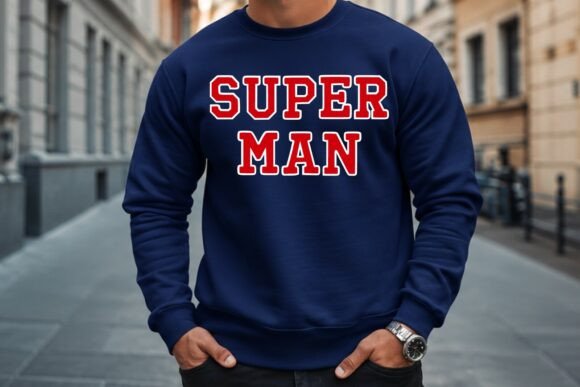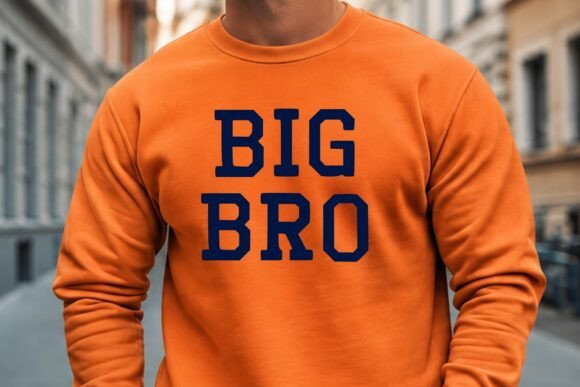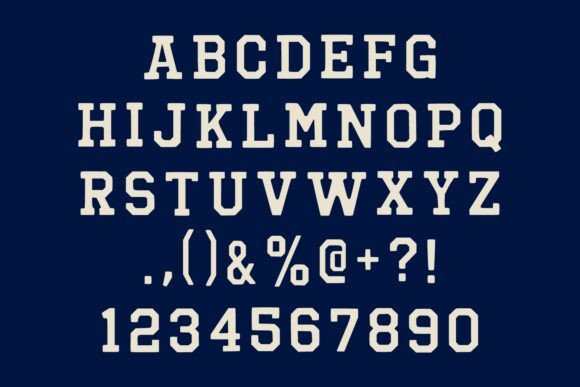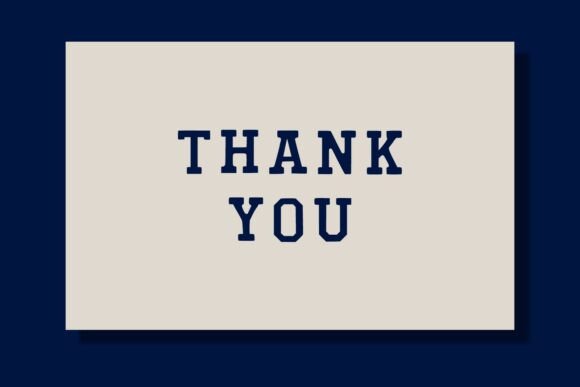
Introducing College Font: The Ultimate Varsity Display Typeface
Are you looking for a font that captures the spirit of classic American college sports, vintage university lettering, and retro campus culture? Look no further than College Font, a bold and energetic varsity display typeface designed to deliver a powerful and professional look. In this article, we’ll dive into the features and benefits of College Font, and explore how it can elevate your sports branding, jersey designs, team logos, and more.
Inspired by Classic American College Sports
College Font is inspired by the iconic lettering and typography of classic American college sports. From vintage university lettering to athletic team jerseys and retro campus culture, this font captures the authentic spirit of championship games, school pride, and traditional varsity aesthetics. With its strong collegiate character shapes and sporty outlines, College Font is the perfect choice for designers and crafters looking to create bold and eye-catching designs.
Key Features of College Font
- Bold Slab-Style Letterforms: College Font features bold slab-style letterforms that provide a powerful and professional look.
- Retro Varsity Details: The font combines retro varsity details with modern typography, creating a timeless sports typography style suitable for both modern and vintage-inspired designs.
- Strong Collegiate Character Shapes: College Font’s character shapes are designed to evoke the spirit of classic American college sports, making it perfect for sports branding, jersey designs, and team logos.
- Sporty Outlines: The font’s sporty outlines add a dynamic touch to your designs, making them stand out from the crowd.
College Font is versatile and can be used for a wide range of applications, including:
- Sports Branding: Create bold and eye-catching sports branding, including team logos, jerseys, and merchandise.
- Jersey Designs: Design stunning jerseys for football, basketball, baseball, and more.
- Team Logos: Create professional and memorable team logos that capture the spirit of your team.
- School Merchandise: Design school merchandise, including t-shirts, hoodies, and posters, that showcase school pride.
- Posters and Banners: Create eye-catching posters and banners for athletic events, championships, and more.
- Social Media Graphics: Design engaging social media graphics that capture the spirit of your team or brand.
Why Choose College Font?
So why choose College Font over other fonts? Here are just a few reasons:
- Unique and Authentic Style: College Font offers a unique and authentic style that captures the spirit of classic American college sports.
- High-Quality Design: The font is designed with high-quality craftsmanship, ensuring that your designs look professional and polished.
- Versatility: College Font is versatile and can be used for a wide range of applications, from sports branding to school merchandise.
In conclusion, College Font is the ultimate varsity display typeface for designers and crafters looking to capture the spirit of classic American college sports. With its bold and energetic design, strong collegiate character shapes, and sporty outlines, this font is perfect for sports branding, jersey designs, team logos, and more. Whether you’re creating football jerseys, basketball team graphics, baseball branding, esports logos, or retro athletic posters, College Font provides the perfect balance between style and functionality. So why wait? Download College Font today and start creating stunning designs that capture the spirit of championship games and school pride!